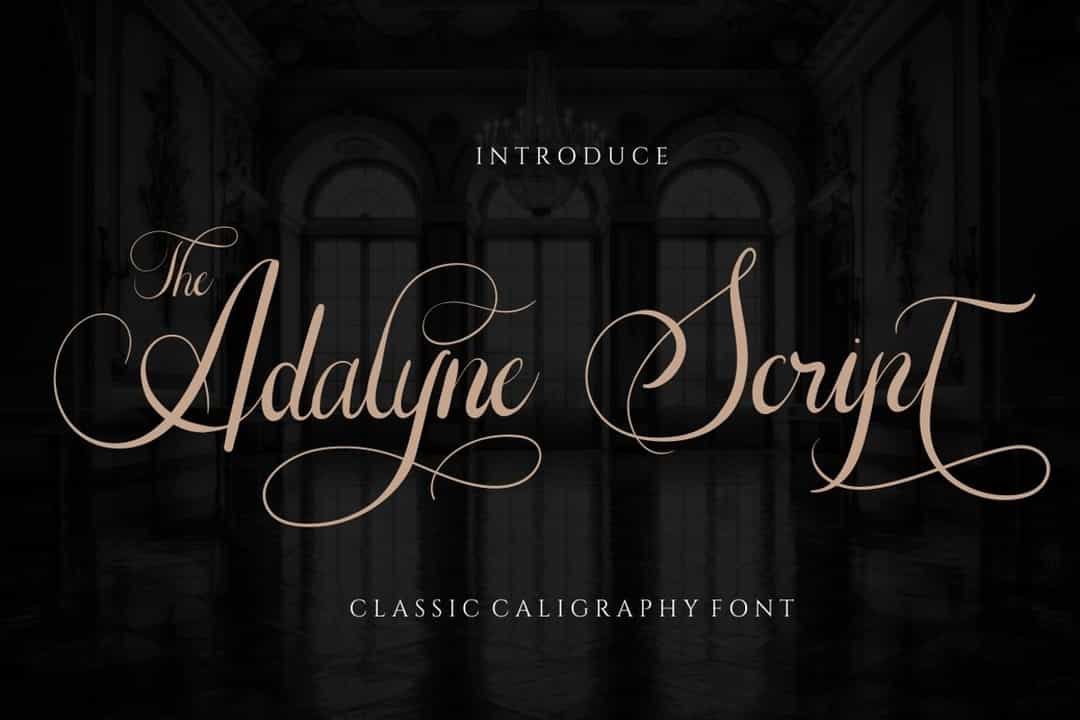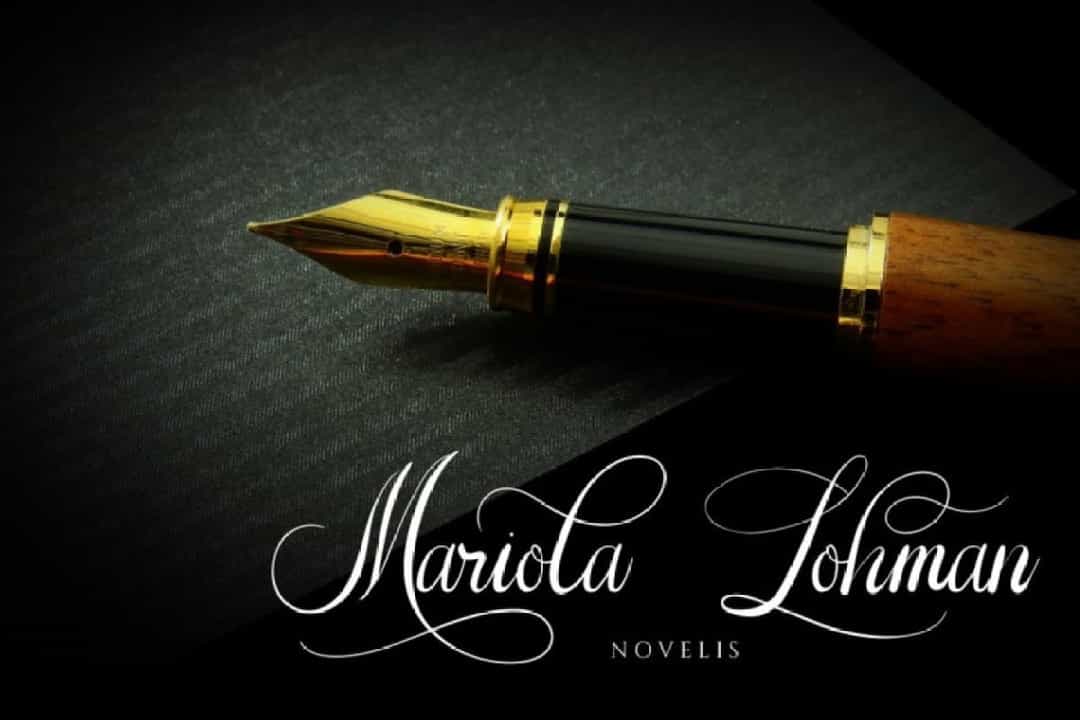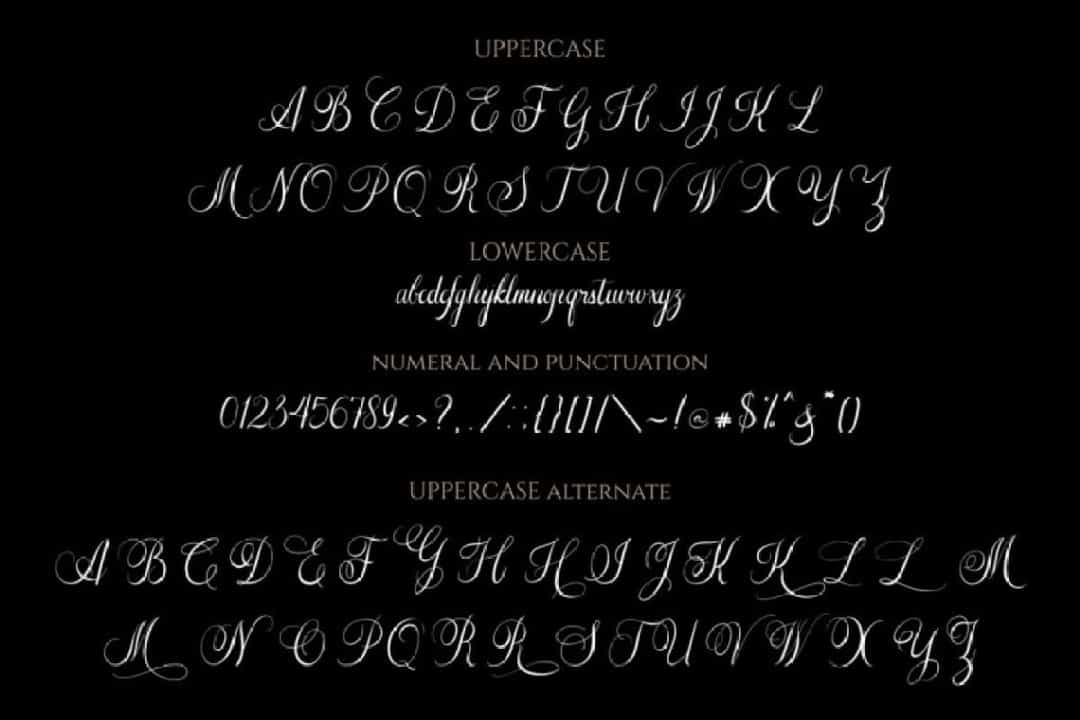
This font is an Adelyne Caligraphy font which is handwritten font that will always be in style. A great option for creating wedding associated media including book covers and greeting cards logos for brands business cards certificates and any other design that requires class luxury or elegance.